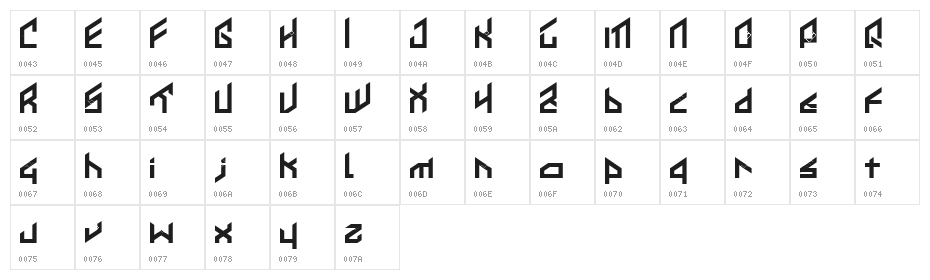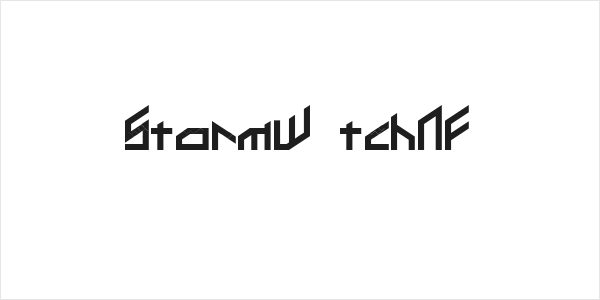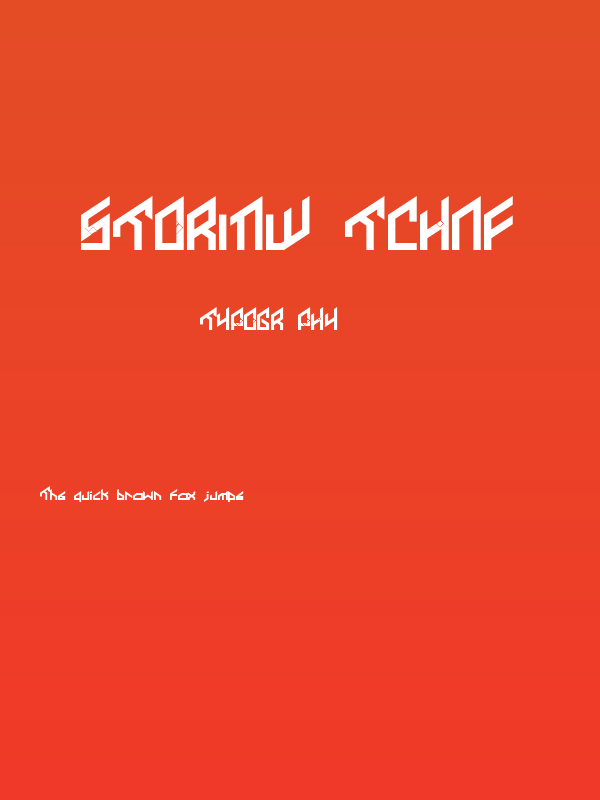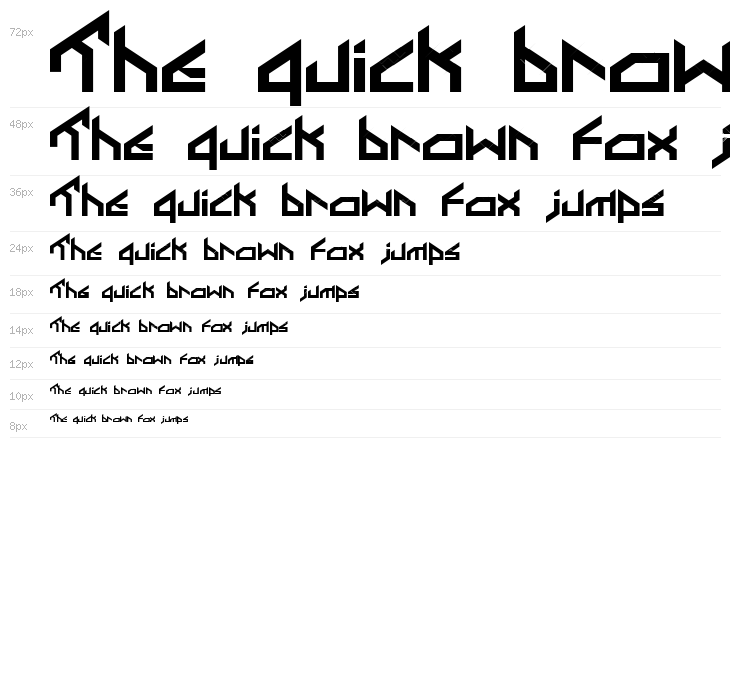
StormWatchNF Font
StormWatchNF Description
This font features a bold, angular design with sharp, geometric edges that give it a futuristic and edgy appearance. The characters are constructed with thick strokes and sharp angles, creating a sense of movement and energy. The uppercase and lowercase letters maintain a consistent style, with a strong emphasis on vertical and diagonal lines. The numerals and special characters follow the same design principles, ensuring uniformity across the font. Its unique style makes it stand out, suitable for projects that require a modern and dynamic look.
| Proposed Projects | Ideal for sci-fi themed designs, video game titles, posters, and branding that requires a modern, edgy look. |